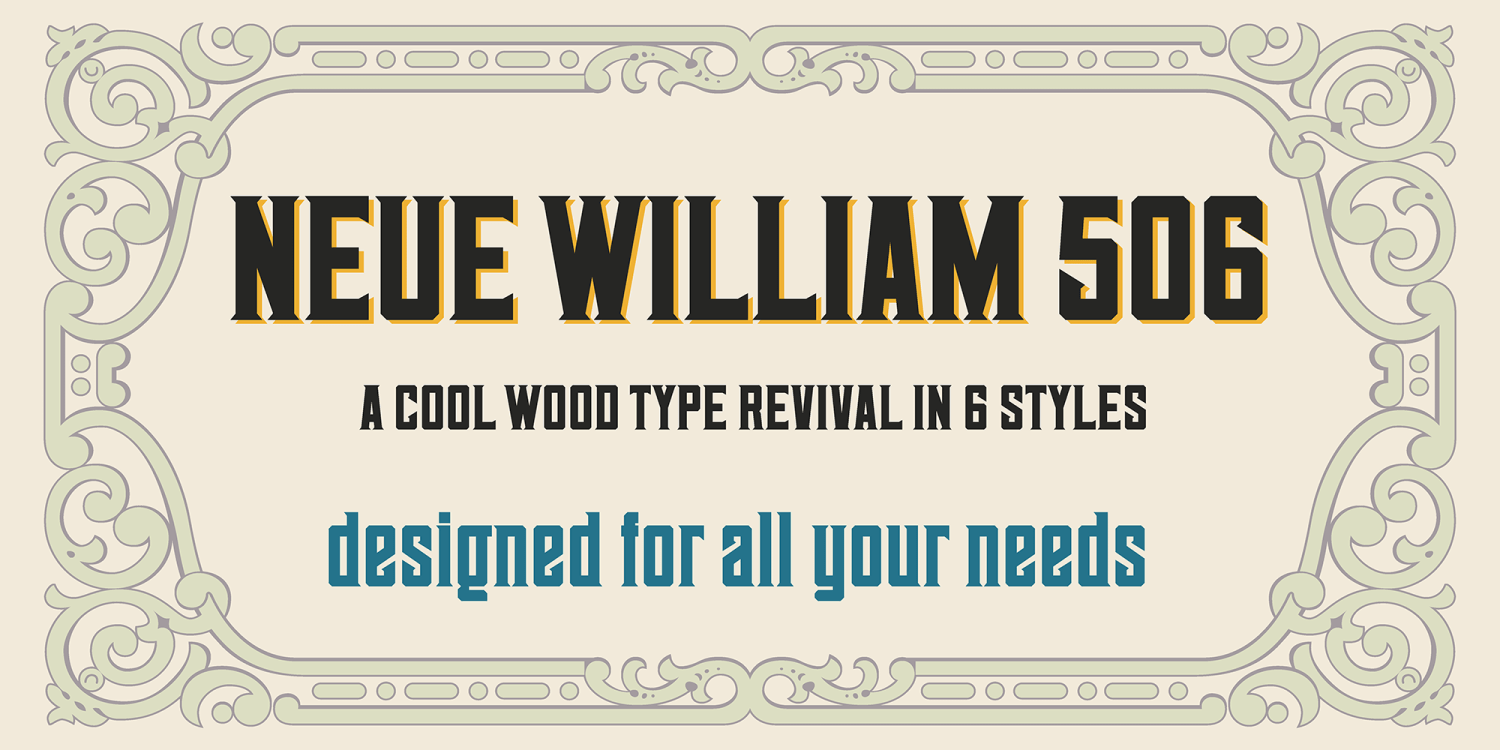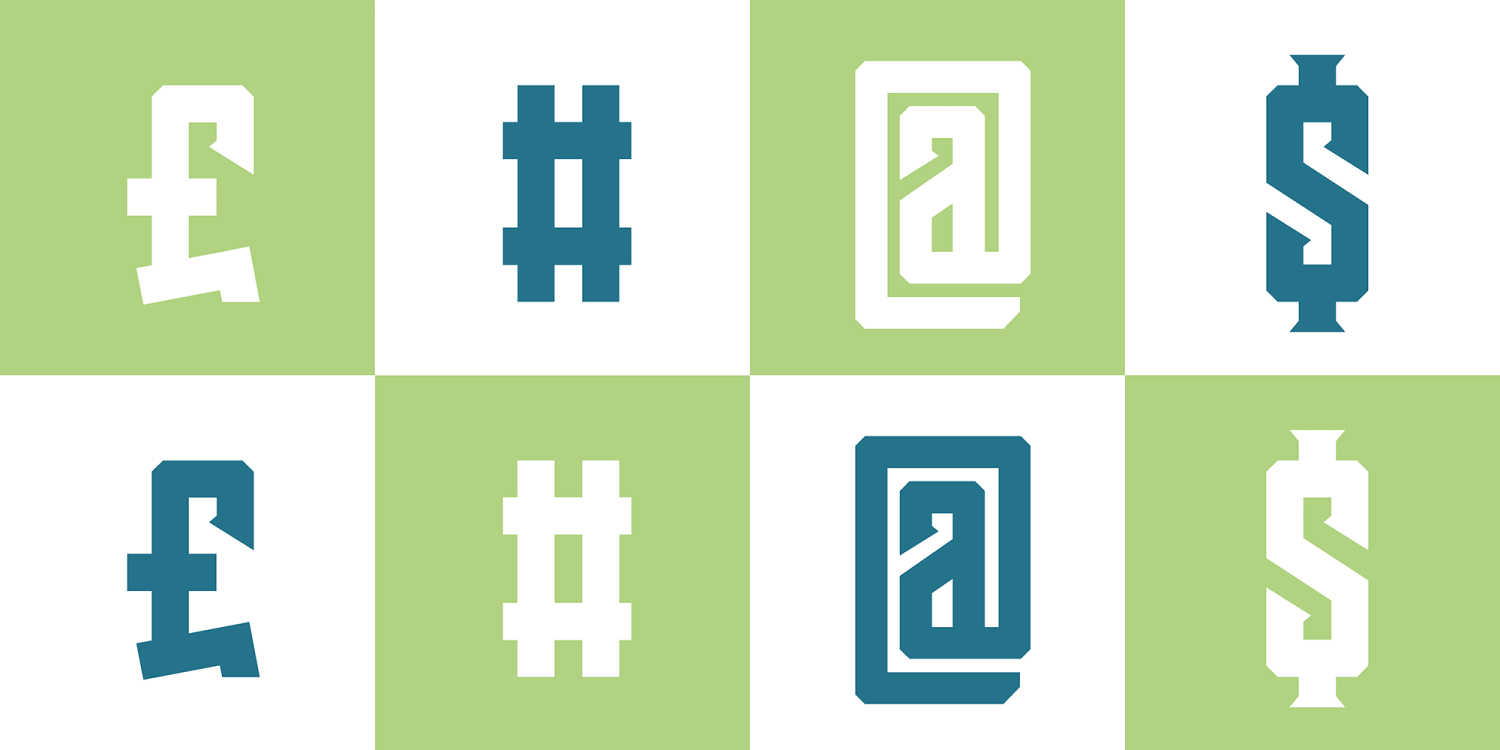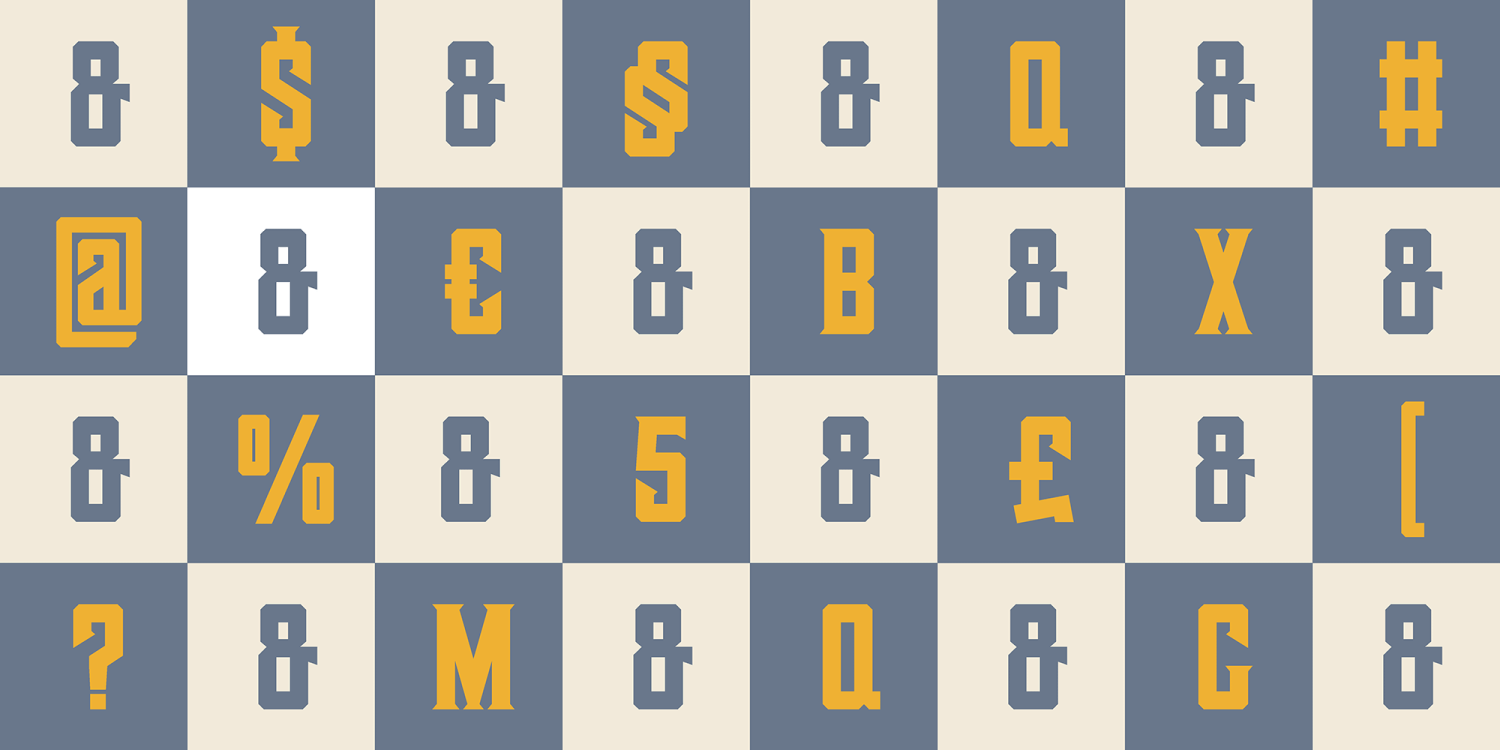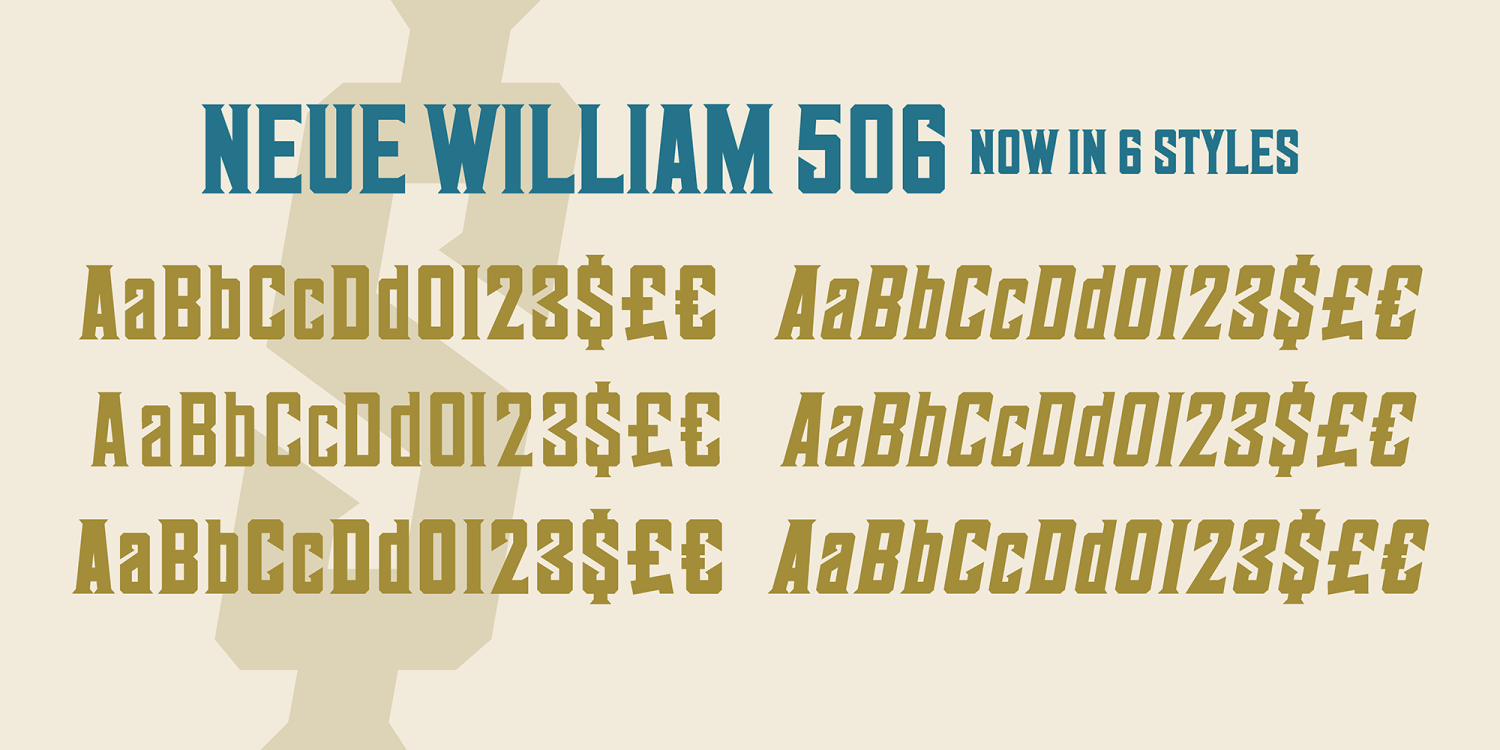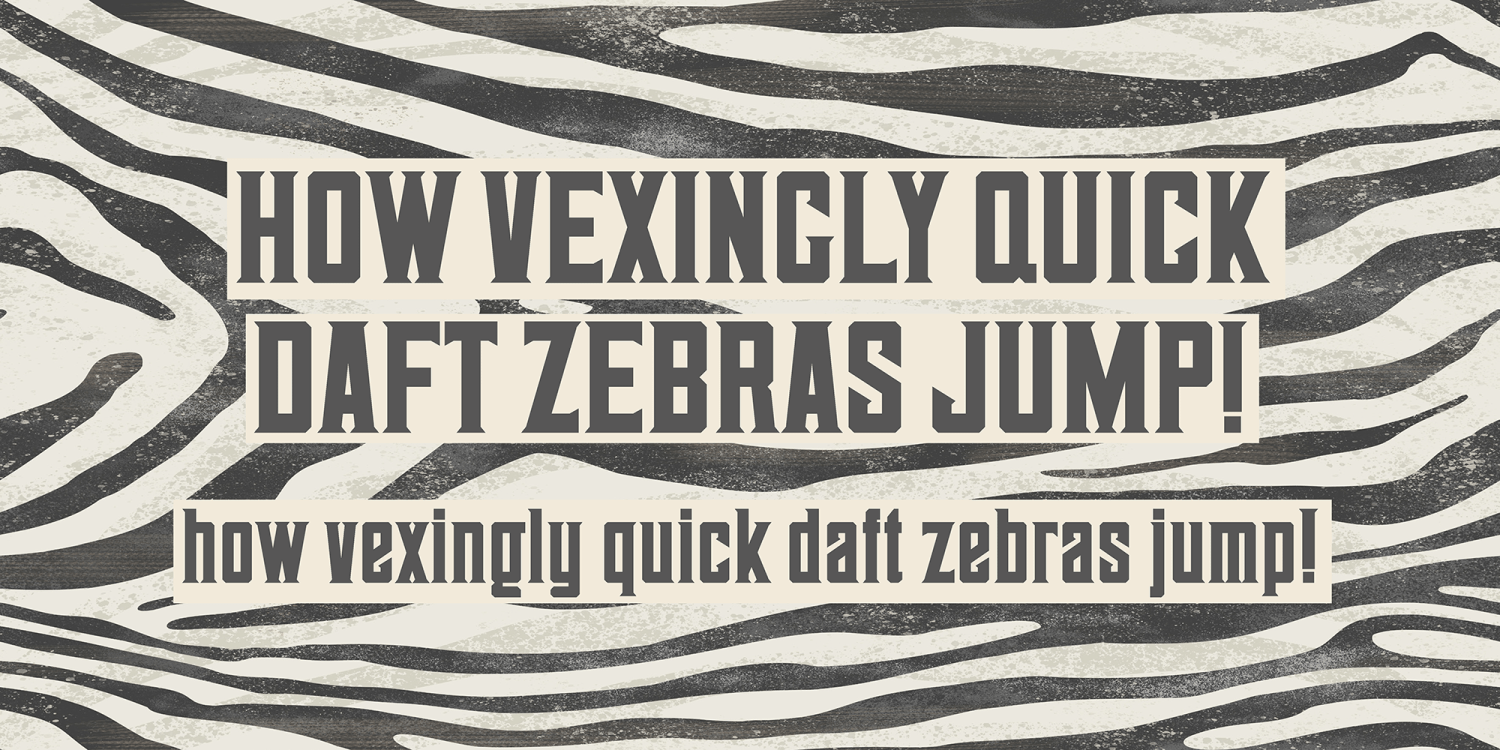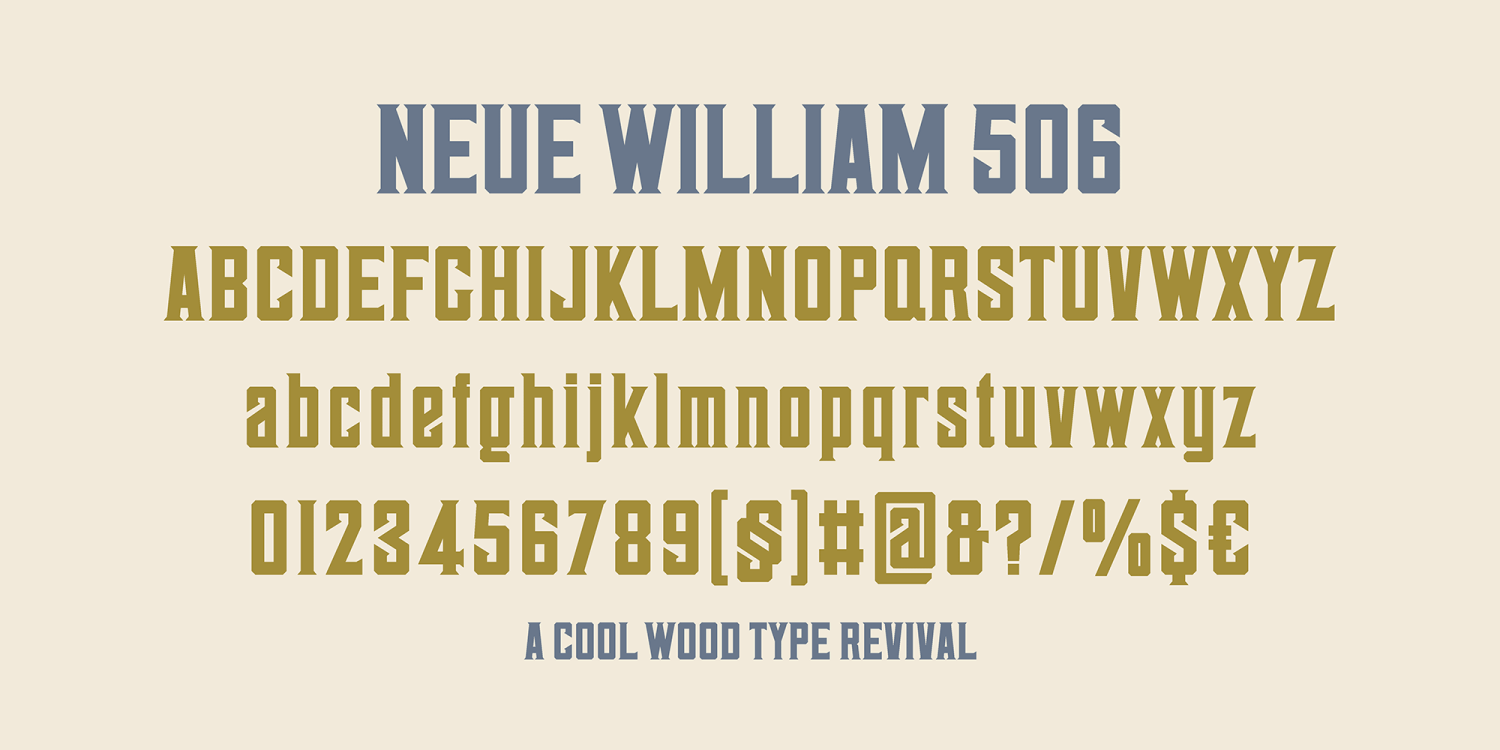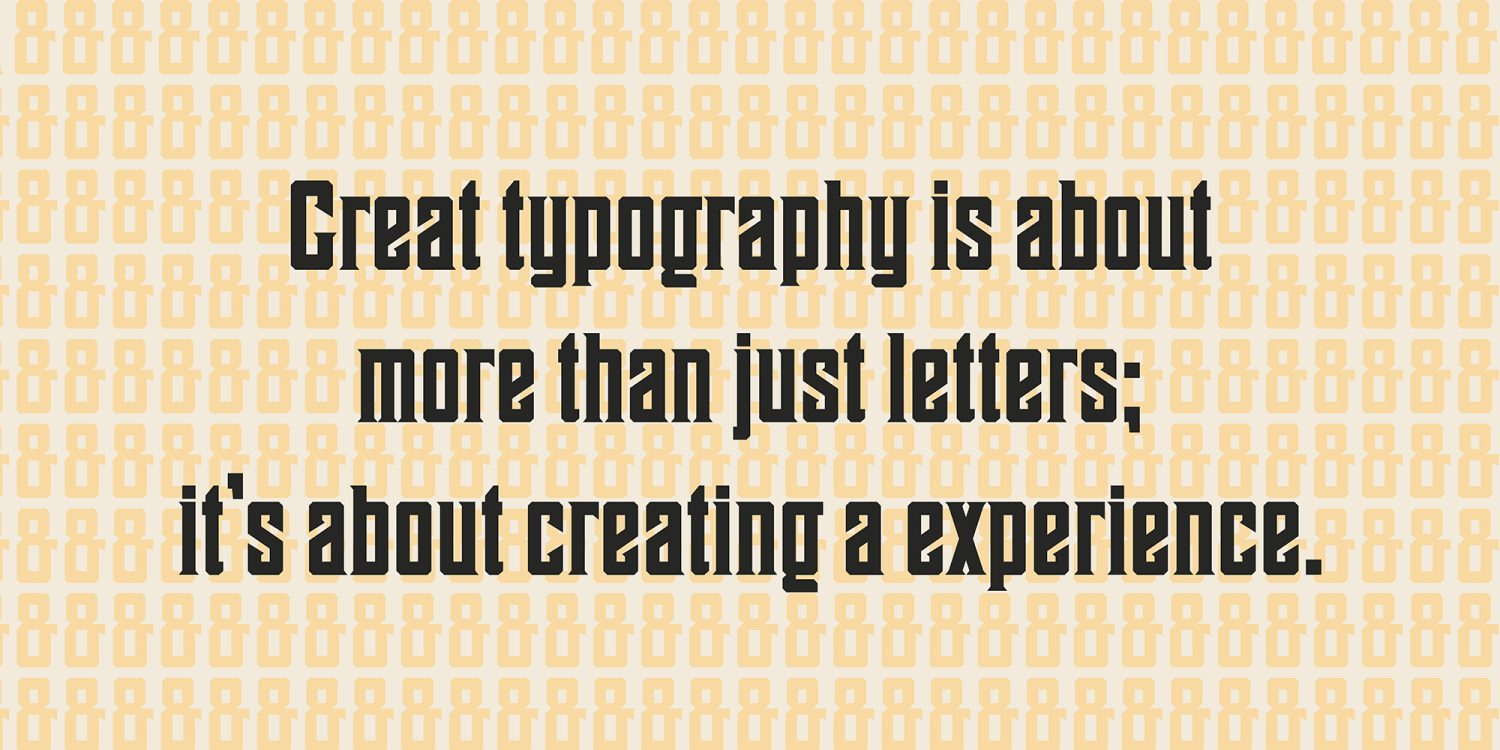
Neue William
Font Family by Kustomtype
Unleash your creativity with Neue William 506, a stunning typeface designed by Coert De Decker of Kustomtype. This font is a tribute to William Hamilton Page and his significant contributions to typography, originally inspired by the wood type featured in the 1890 Page’s New Process Wood Type Album.
Offering six versatile weights, Neue William 506 is perfect for all graphic projects, from eye-catching advertising campaigns to unique logos and stylish t-shirt designs. Its elegant design empowers you to experiment and elevate your work.